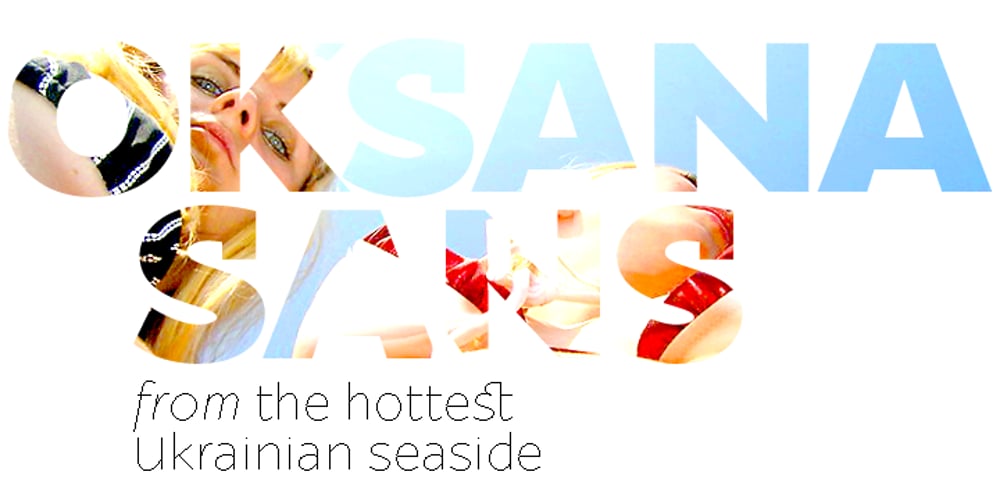
Oksana Sans
Oksana Sans font
Oksana Sans Font Family was designed by Andrij Shevchenko and published by AndrijType. Oksana Sans contains 13 styles and family package options. Oksana Sans is a gothic sister of the Oksana Text typeface. Supports all European Latin and Cyrillic codepages.